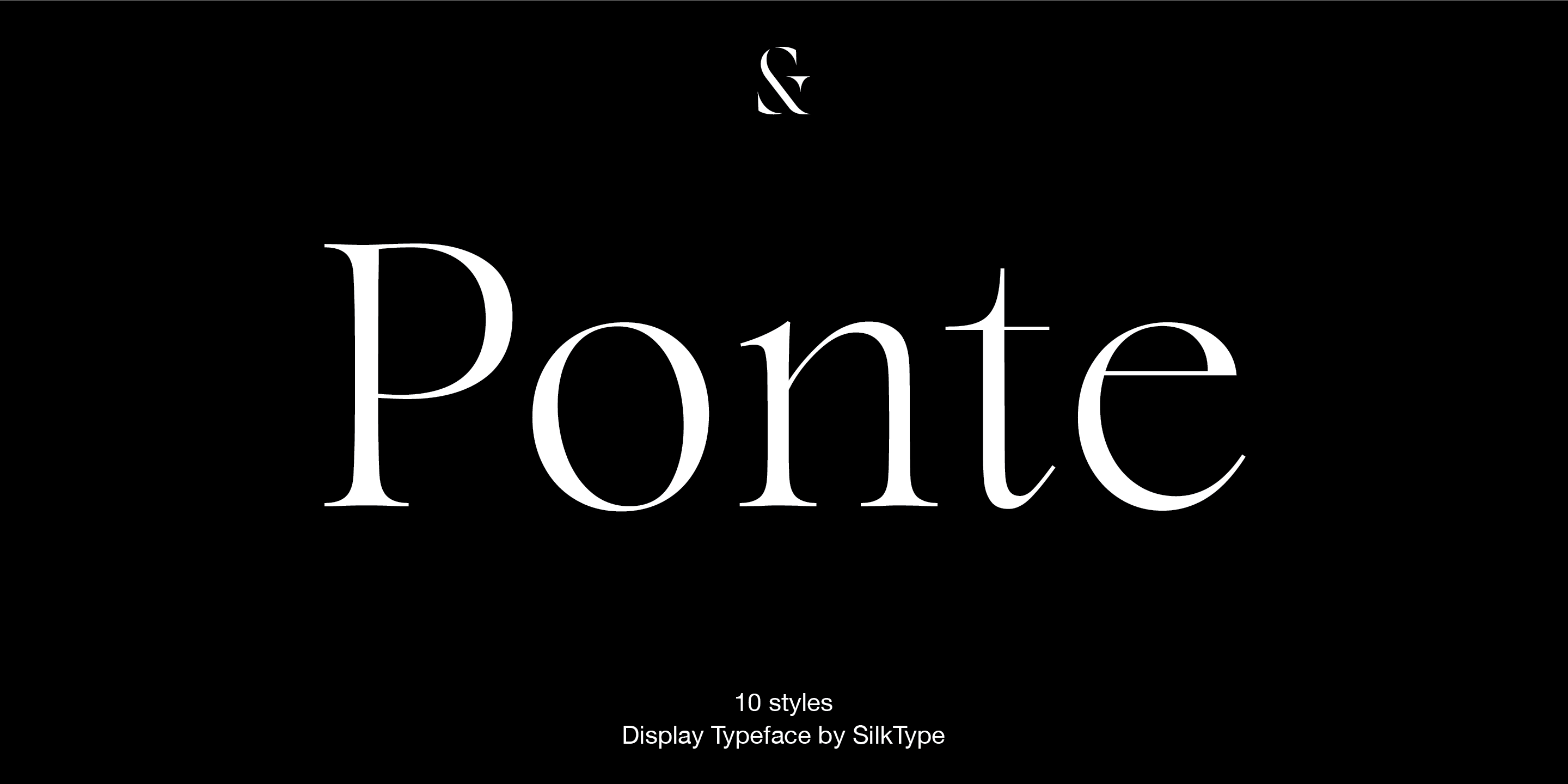
Ponte Font is perfect for architectural firm branding, engineering company materials, construction industry signage, urban planning presentations, bridge design documentation, infrastructure project proposals, civil engineering publications, and modern cityscape tourism materials.
This font is exciting because it embodies the strength and elegance of architectural engineering with structural letterforms that mirror the graceful curves and robust foundations of iconic bridges. The Ponte Font captures the essence of human achievement in connecting spaces and communities, transforming ordinary text into powerful statements of progress, connectivity, and the enduring beauty of functional design.
The Ponte Font family includes structural variations such as Regular, Bold, Light, Medium, Italic, Condensed, Extended, and Span versions, providing architectural professionals with comprehensive typography tools to create communications that reflect the precision, strength, and aesthetic appeal of modern engineering excellence.